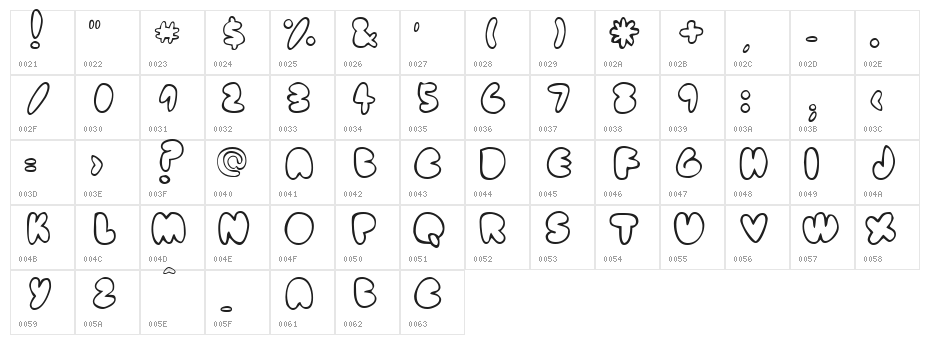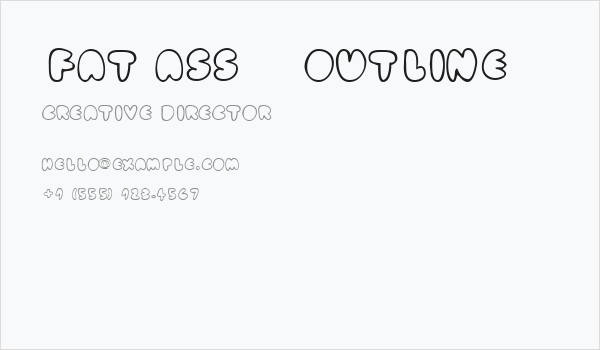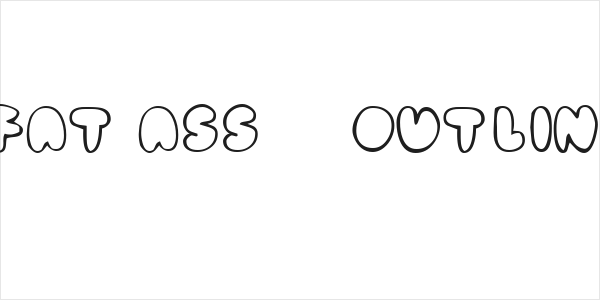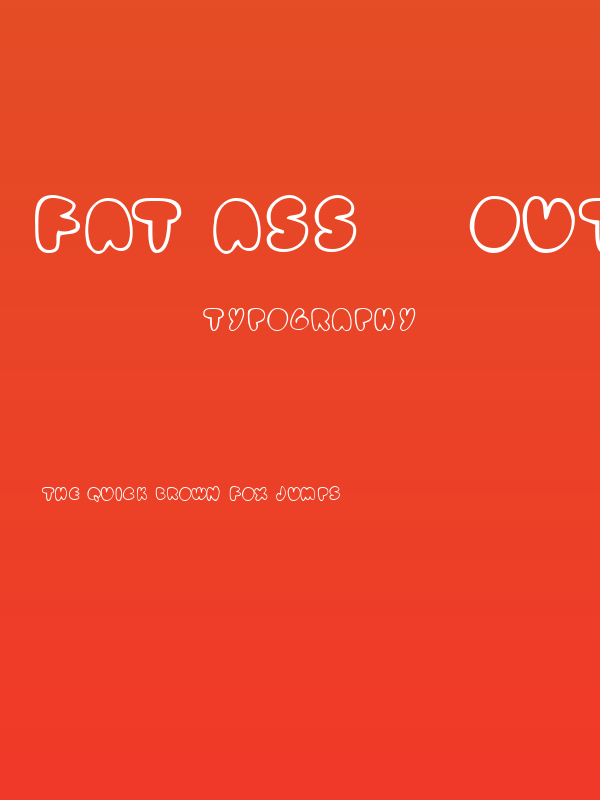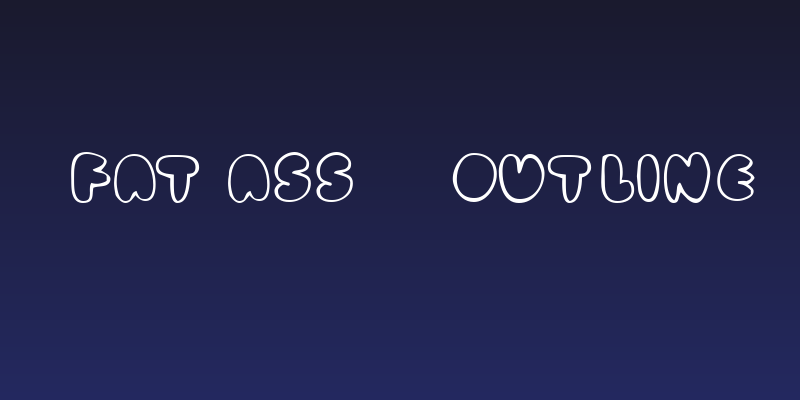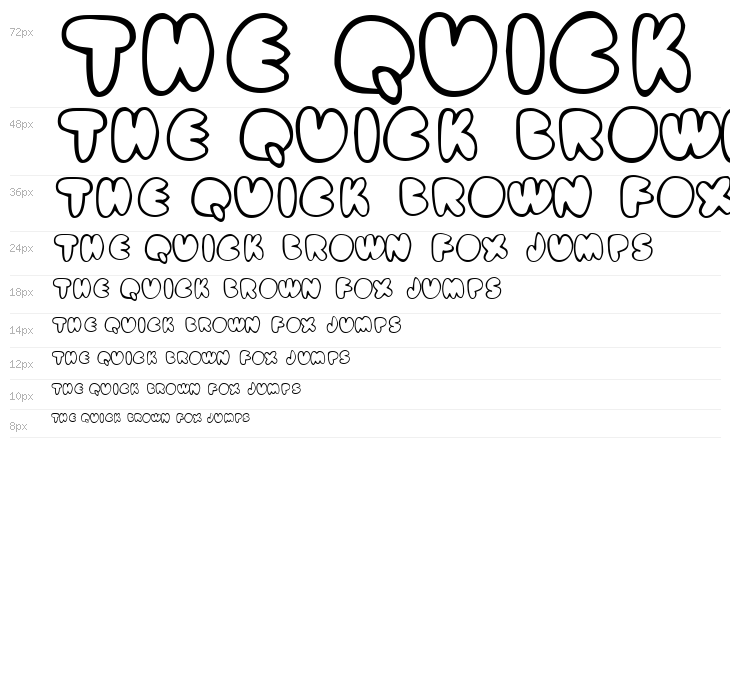
fat ass outline Font
fat ass outline Description
This playful and bold font features thick, rounded outlines that give it a bubbly and cartoonish appearance. Each character is crafted with a consistent stroke width, creating a cohesive and visually appealing look. The letters are slightly condensed, enhancing their playful nature. The font's unique style makes it stand out, with a whimsical and informal vibe that is perfect for creative projects. Its bold outlines ensure readability while adding a touch of fun and excitement to any design.
| Overall Style | Playful, Cartoonish |